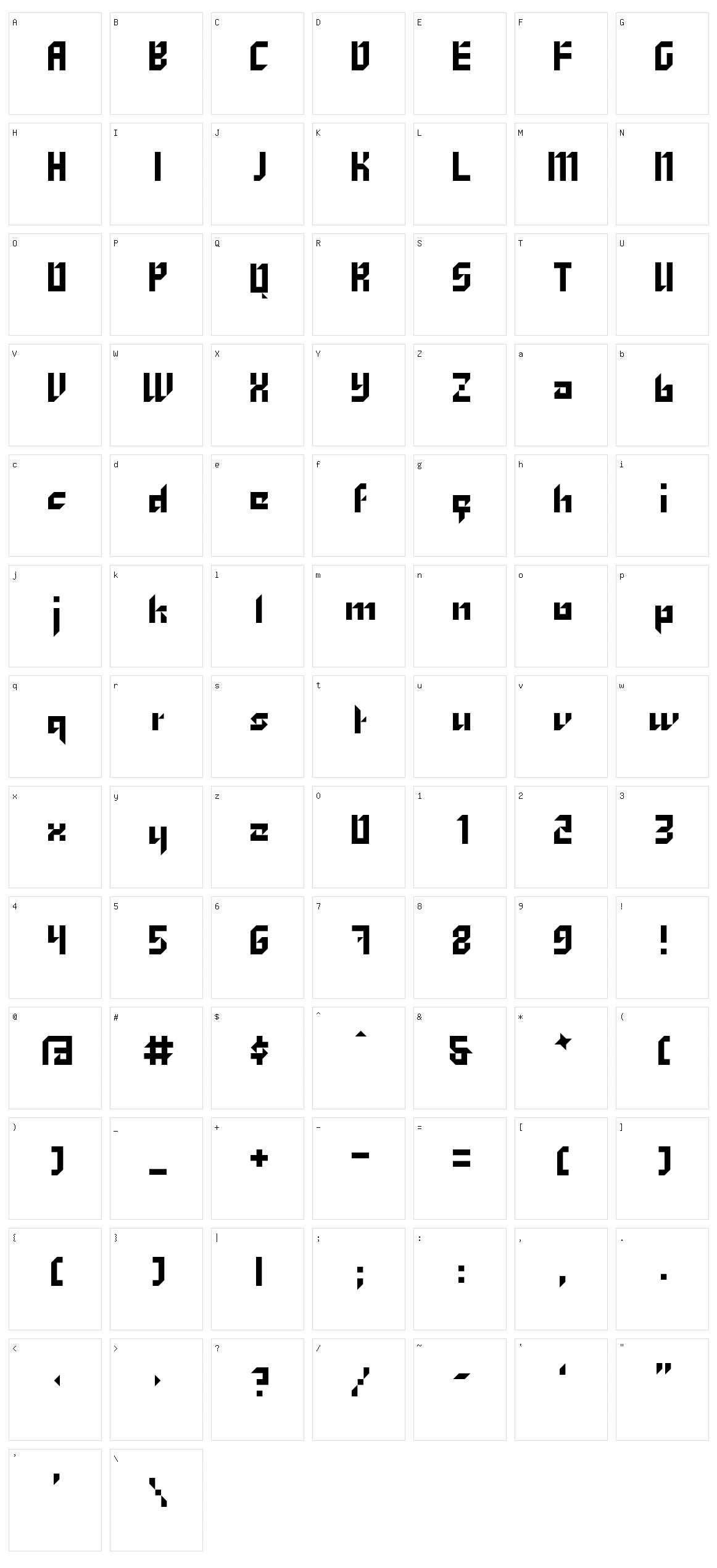
The free font Zhang is carefully designed by Jelloween, showcasing a thoughtful balance of creativity and usability and falls under the Square font style. When you download the ZIP file, it contains only 33.5 KB of font files, making it lightweight and quick to download. Please review the license details below to understand permitted usage and distribution rights. If license information is not available, we recommend using this font for personal projects only or contacting the author directly for commercial usage permissions.